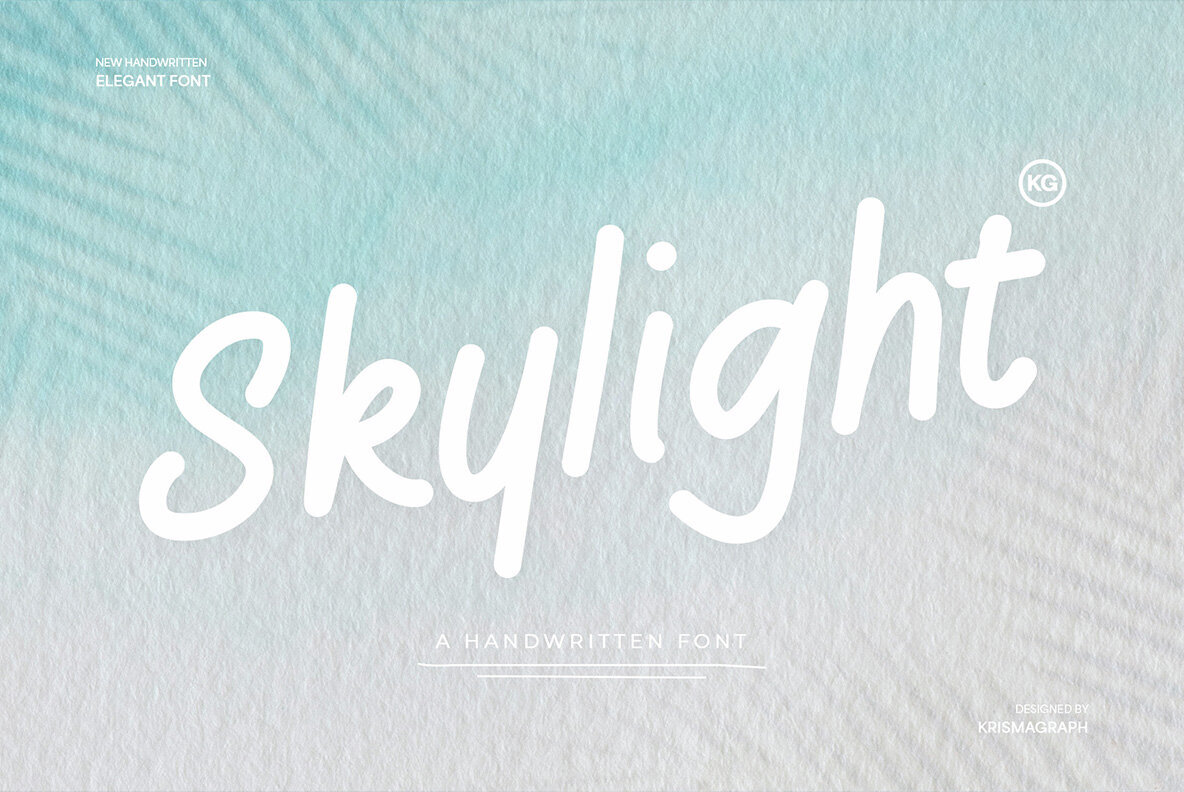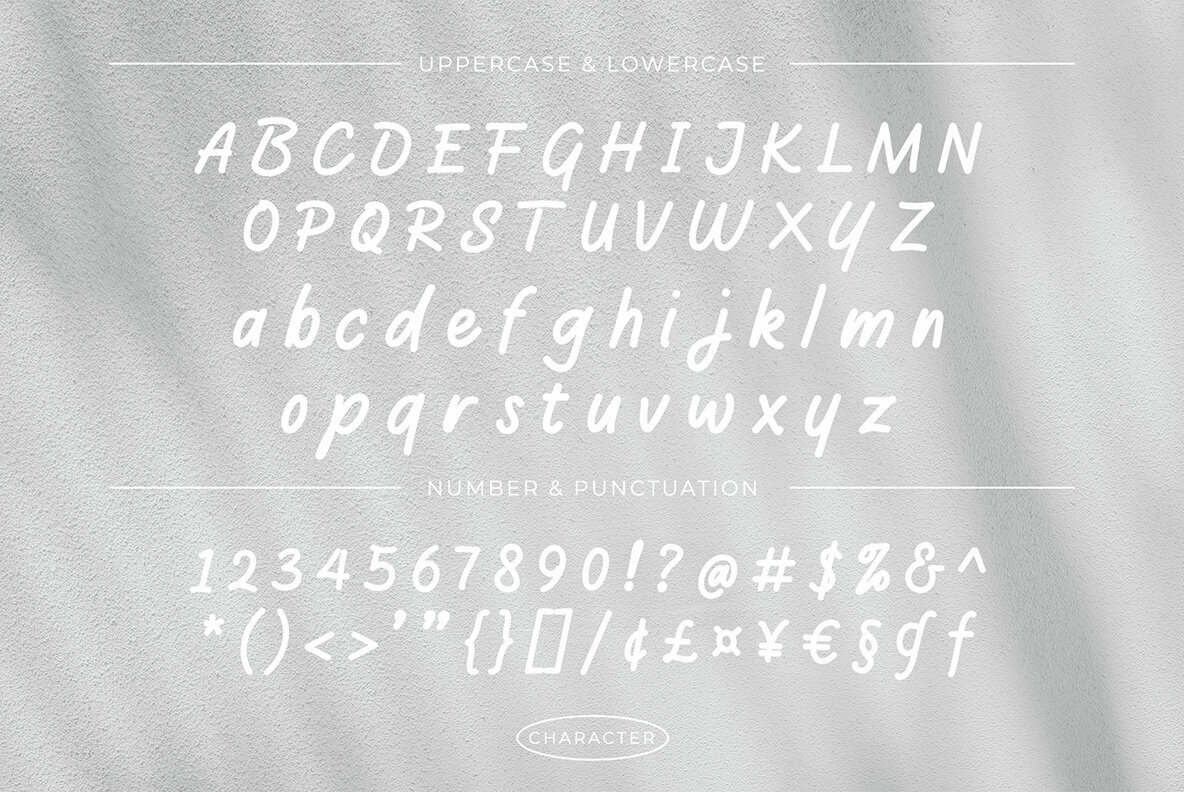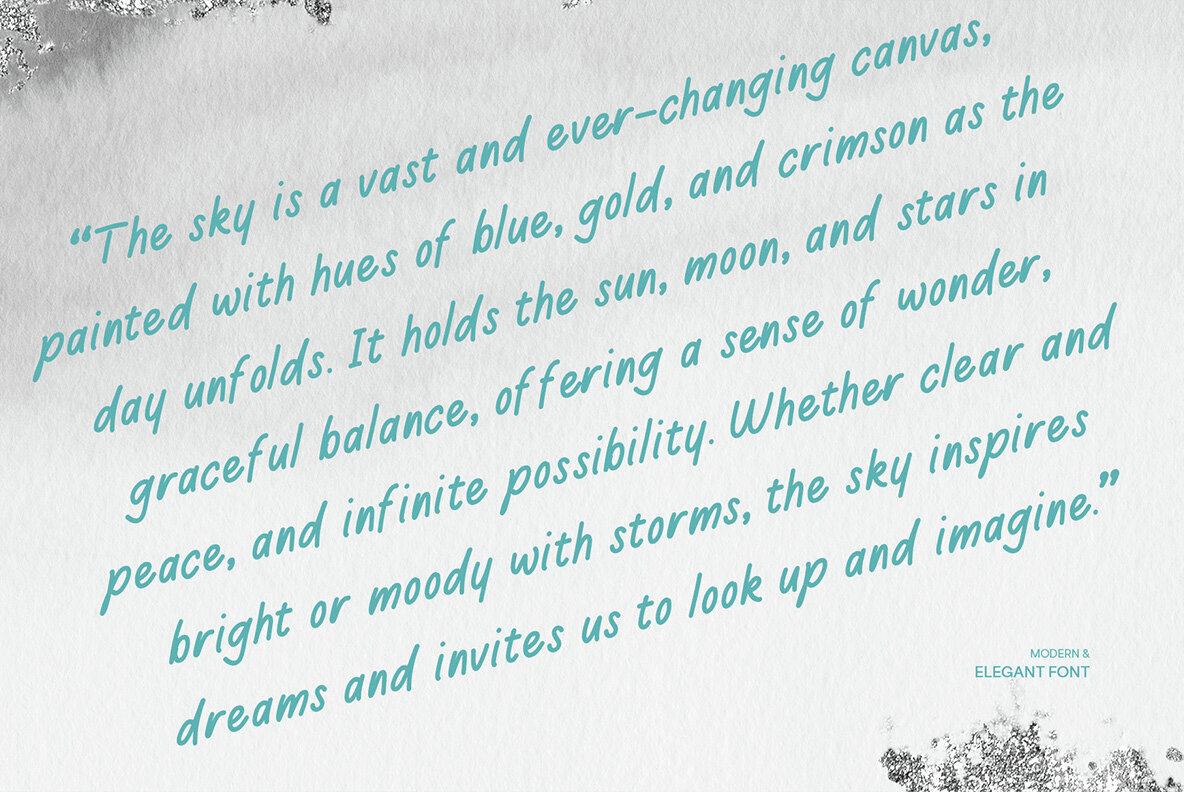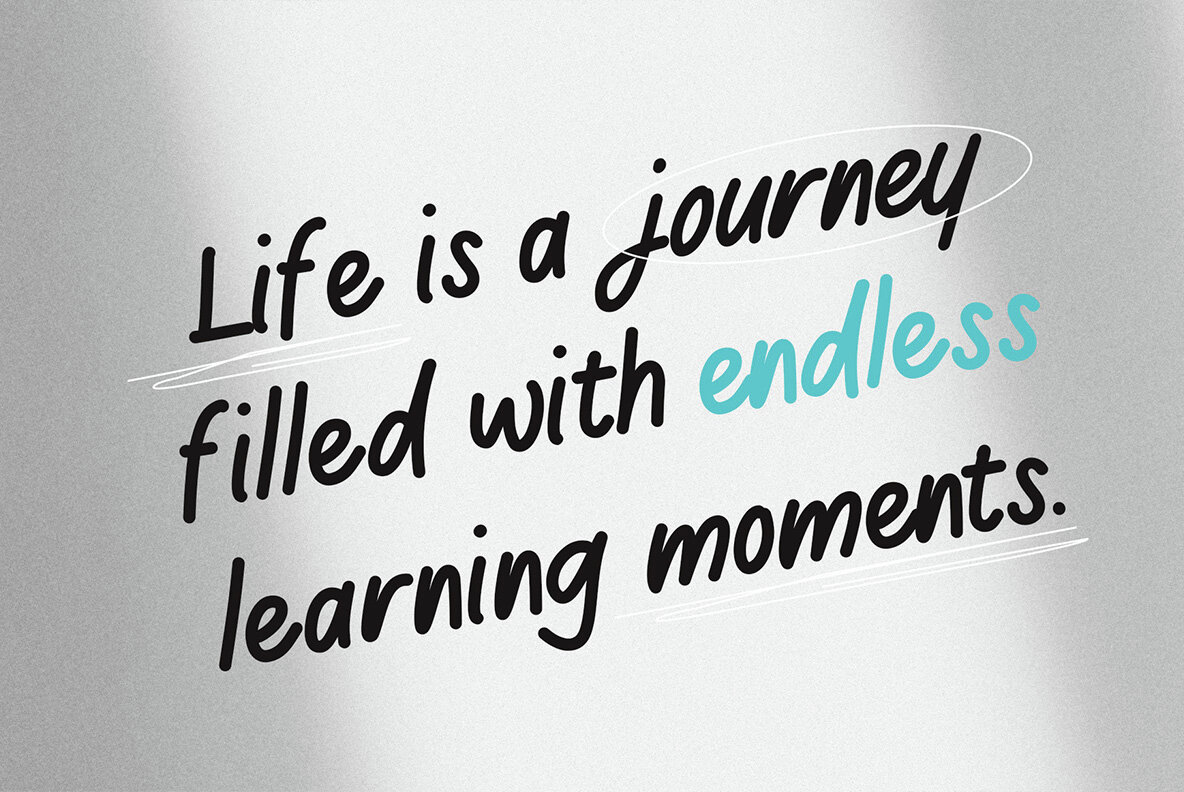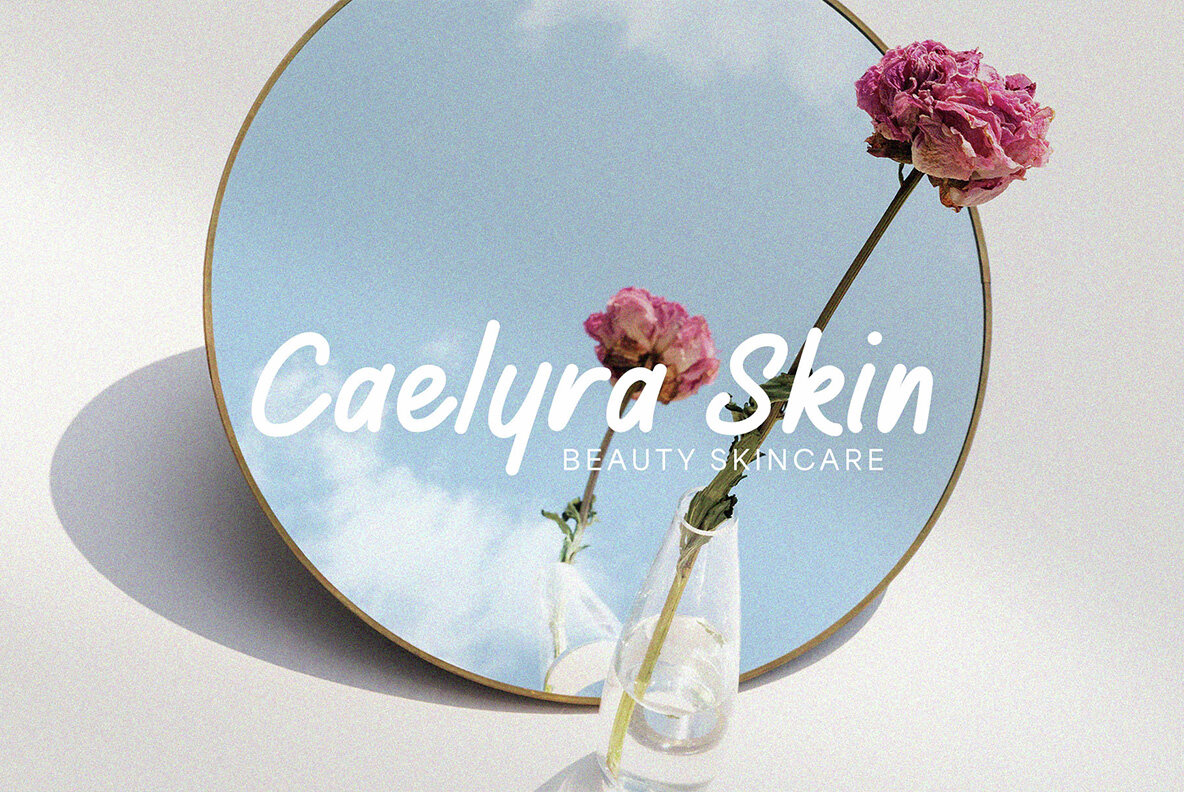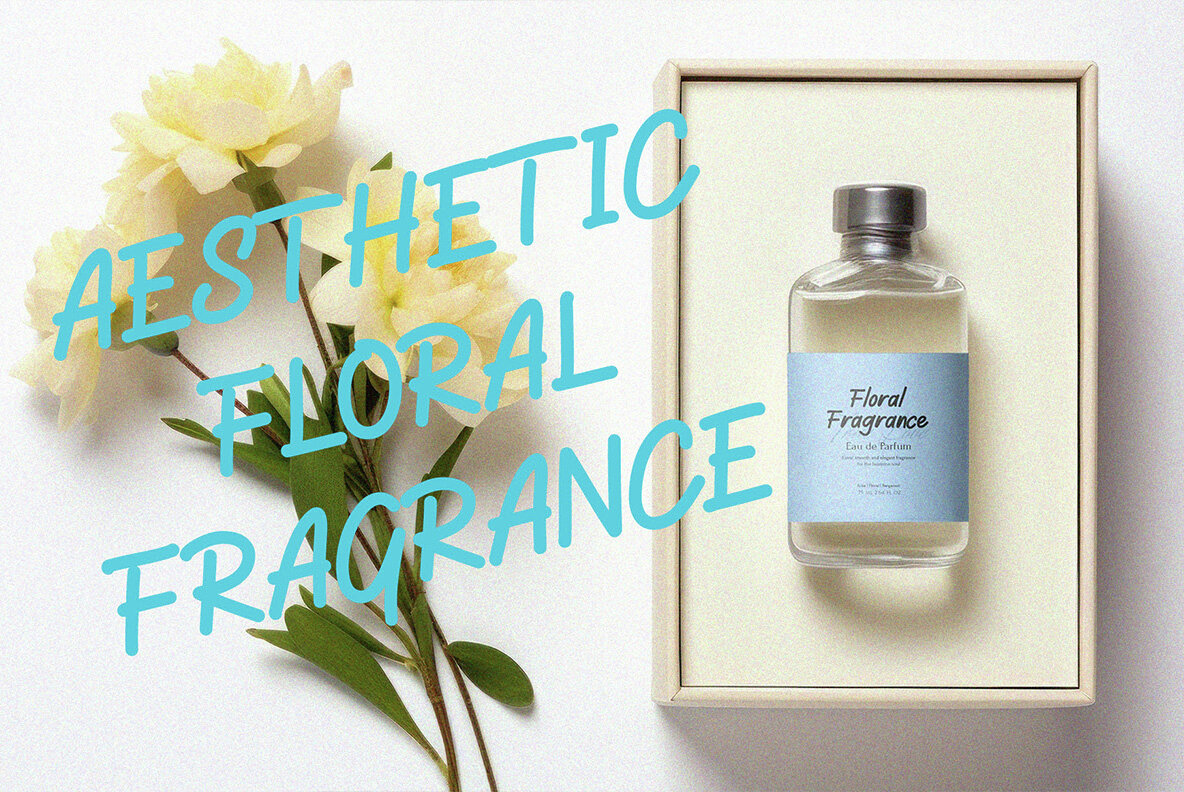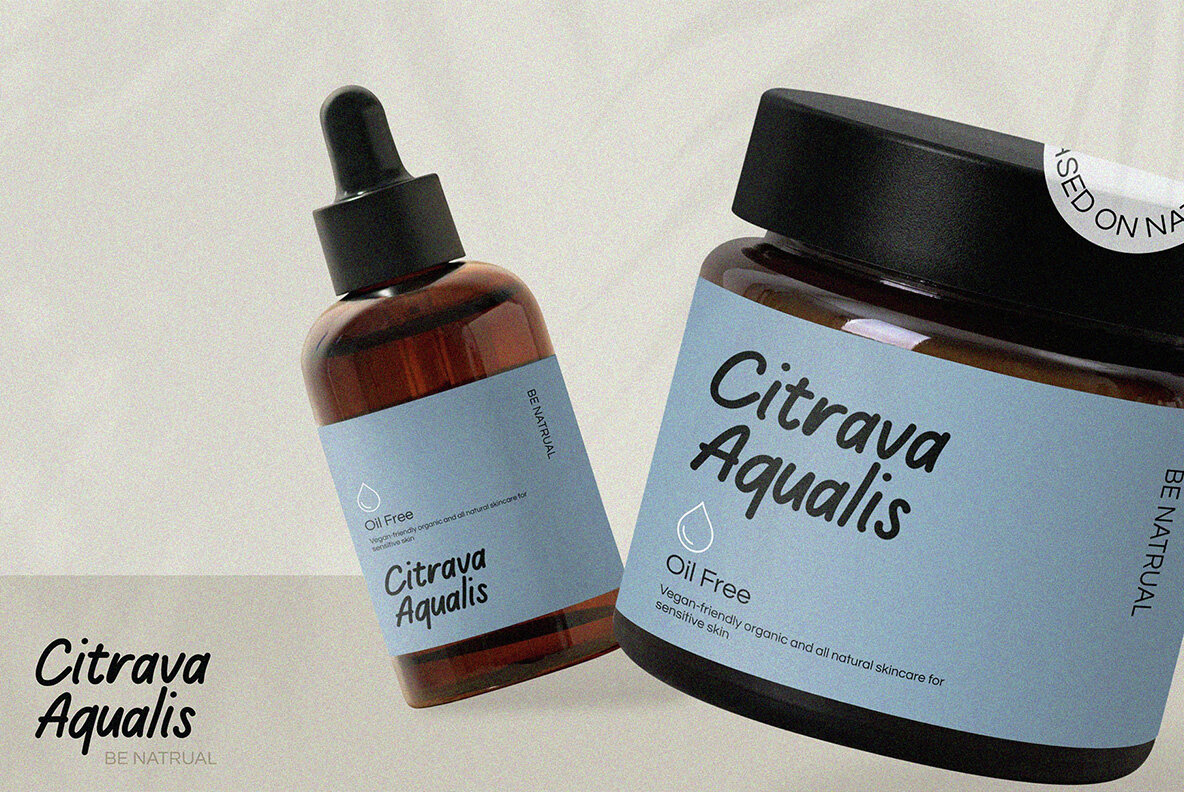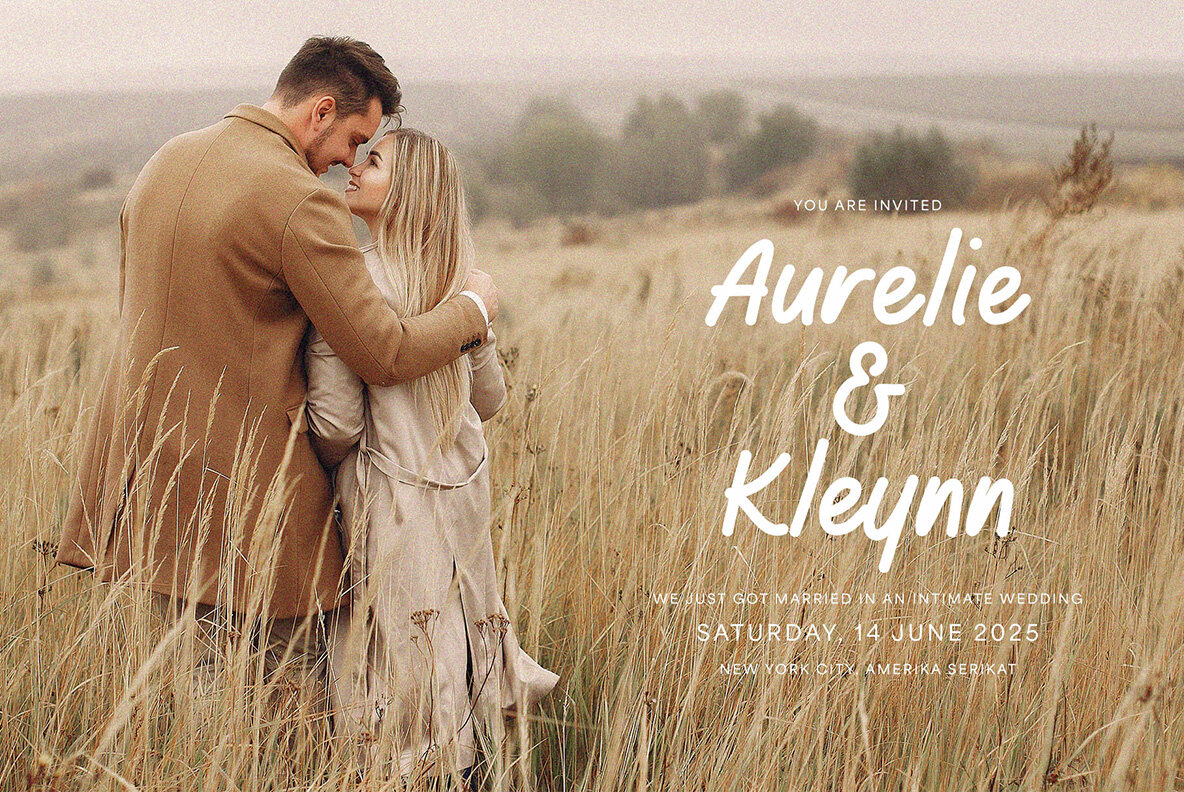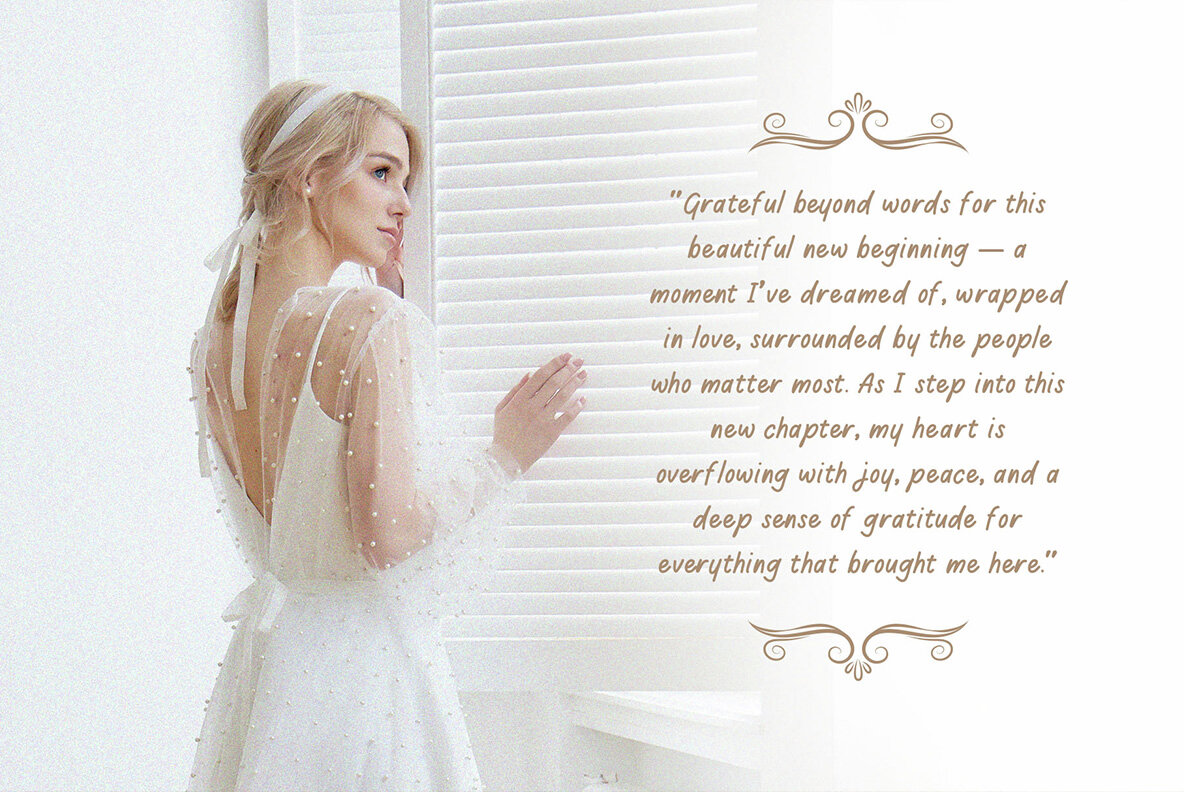
Skylight Font
Skylight
The Skylight font offers a handwritten allure that exudes warmth and subtle elegance. Inspired by the peace of open skies and sunlit days, its seamless flowing curves lend a friendly character, making it an ideal choice for branding, social media graphics, and invitations. Skylight's versatility shines in various design realms like lifestyle, fashion, and wellness, where its personal handwritten touch elevates every project. Embrace the blend of style and serenity with Skylight, a font where each word carries a gentle sophistication.Skylight: Handwritten Font With Casual Sophistication